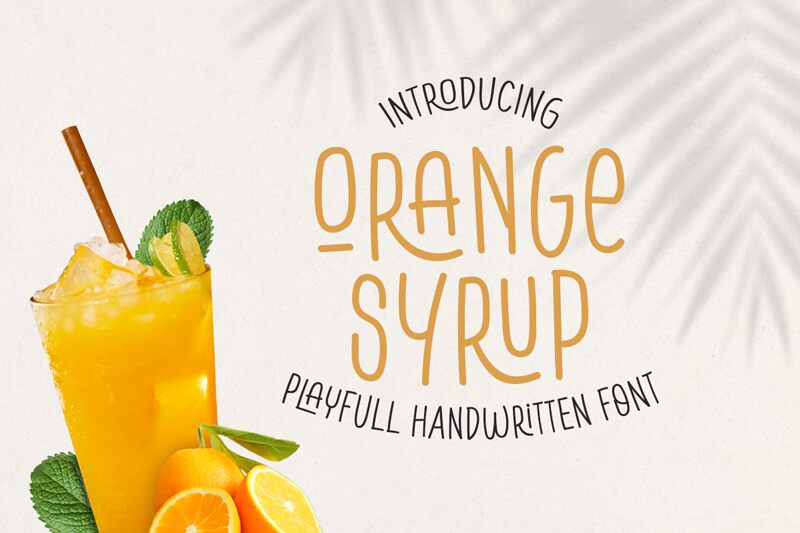
Orange Syrup
Orange Syrup font by Sensatype Studio is a light, handwritten font with a quirky and casual aesthetic. With its condensed width, it brings a modern appeal that maintains an informal tone ideal for various design needs. The refined strokes and organic flow offer creativity and authenticity, making it both versatile and visually engaging.
This free handwritten font is perfect for packaging designs, branding projects including logos, headlines in editorial layouts, handwritten notes in invitations or greeting cards, menus for cafes or restaurants, social media posts, book covers for children’s books or novels, movie posters with a playful touch, t-shirt prints with quirky messages, and product labels that demand attention.